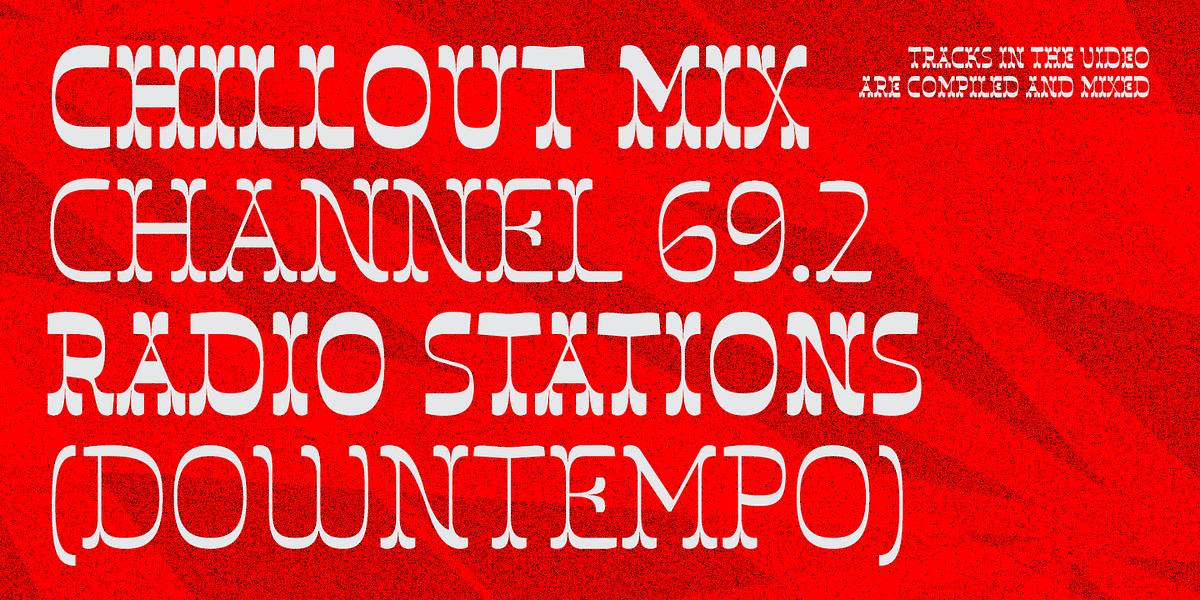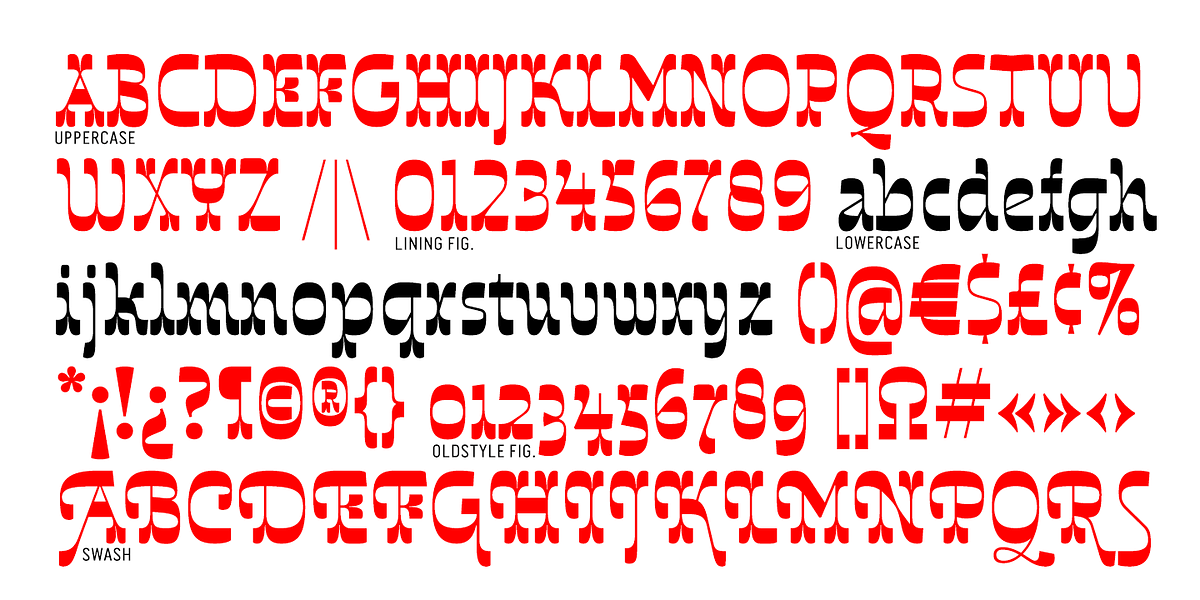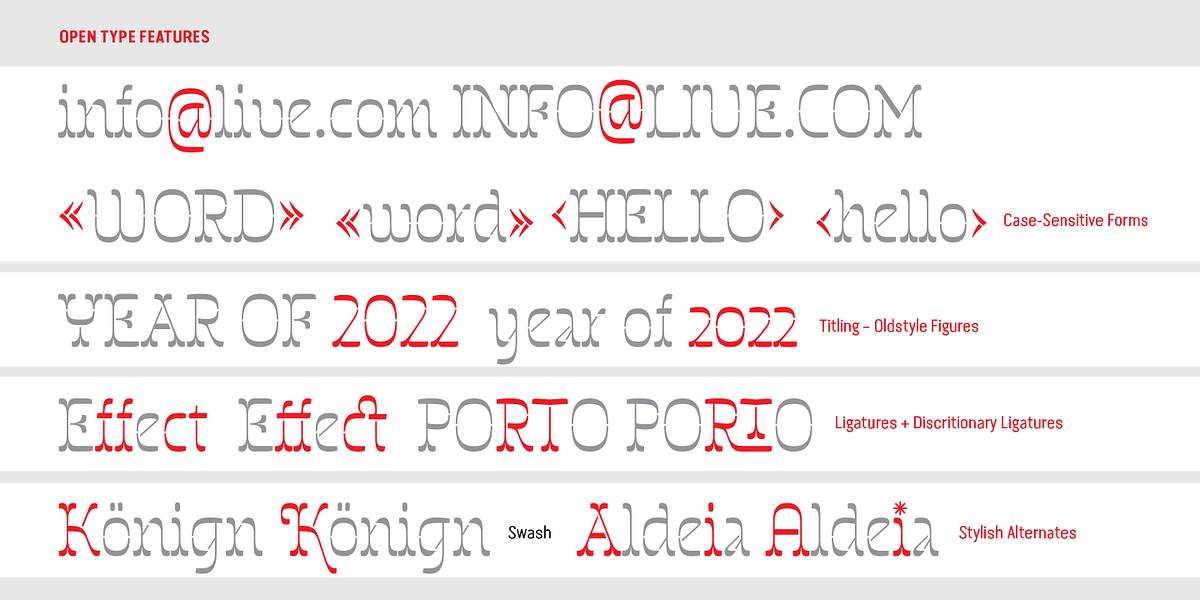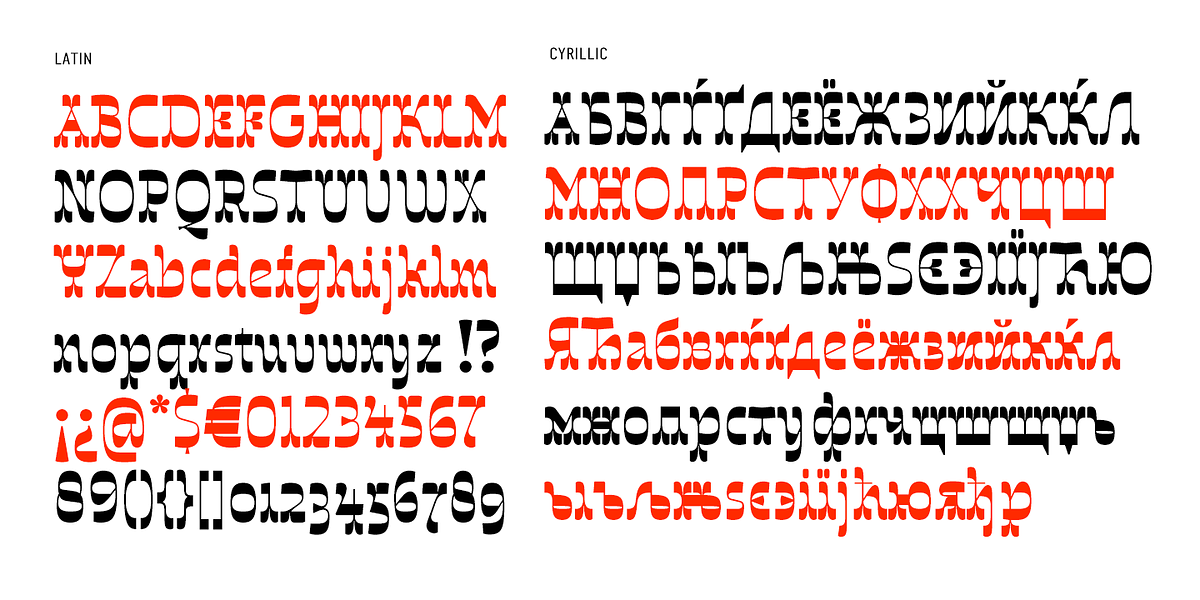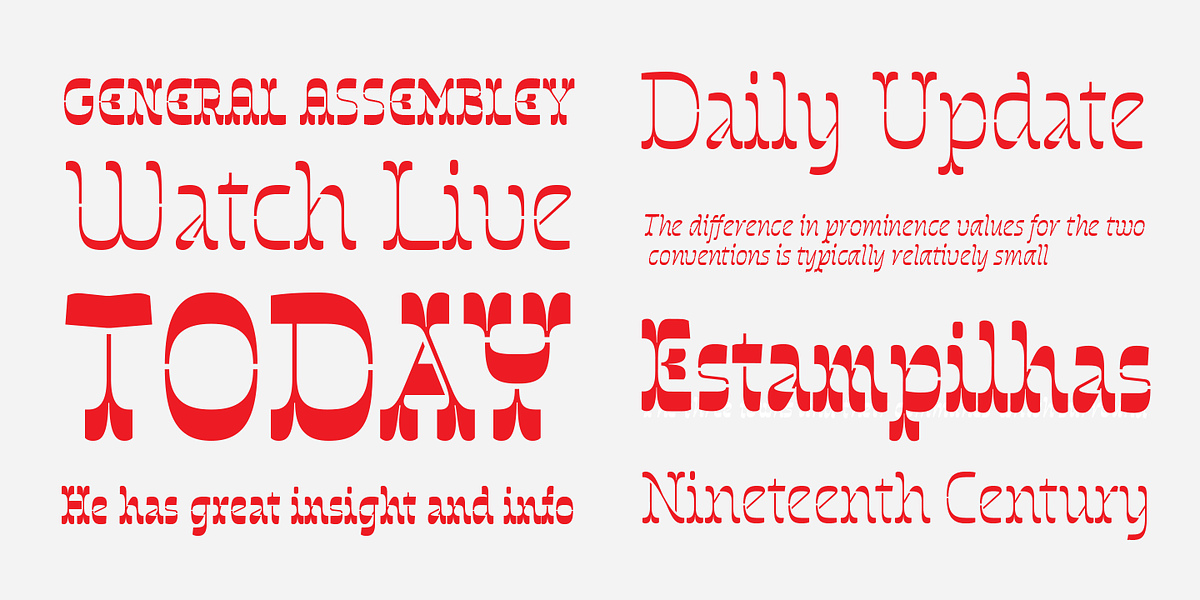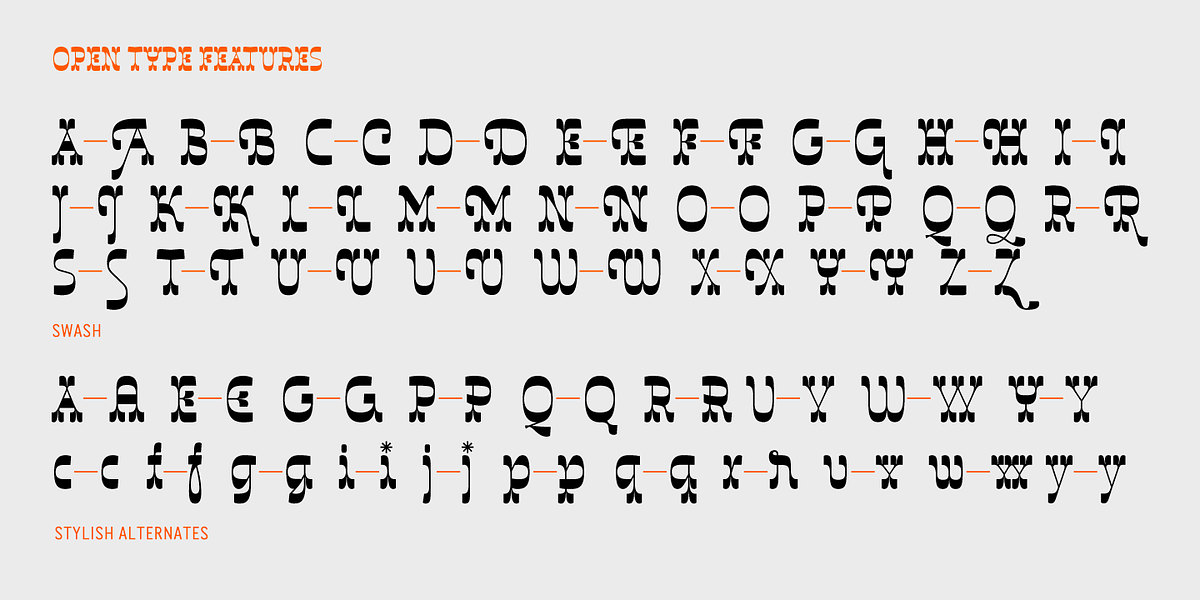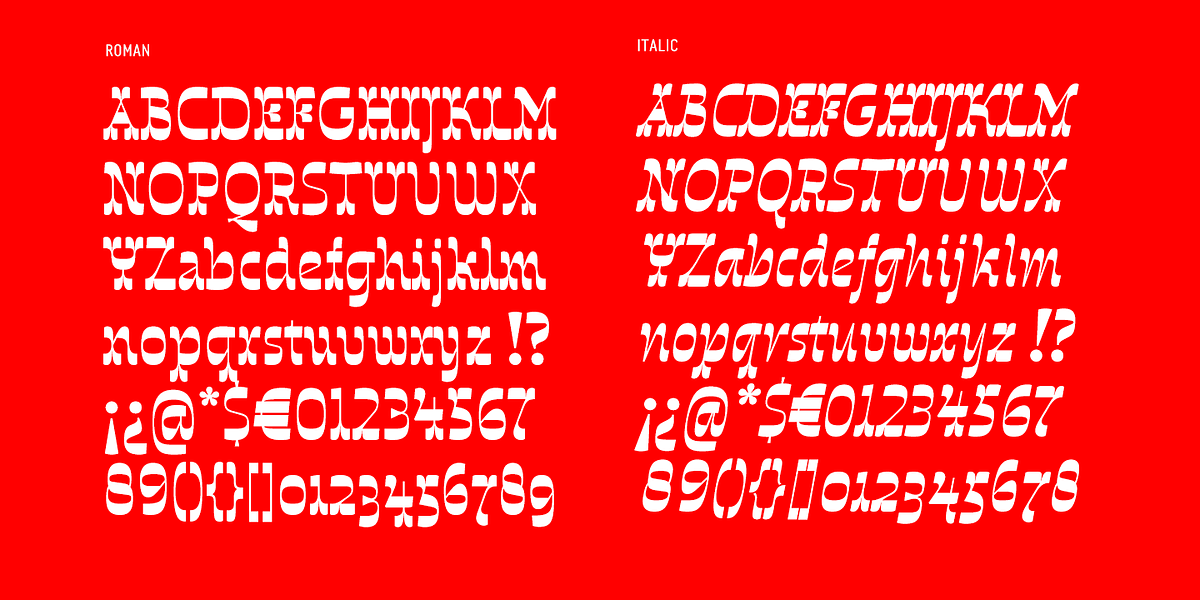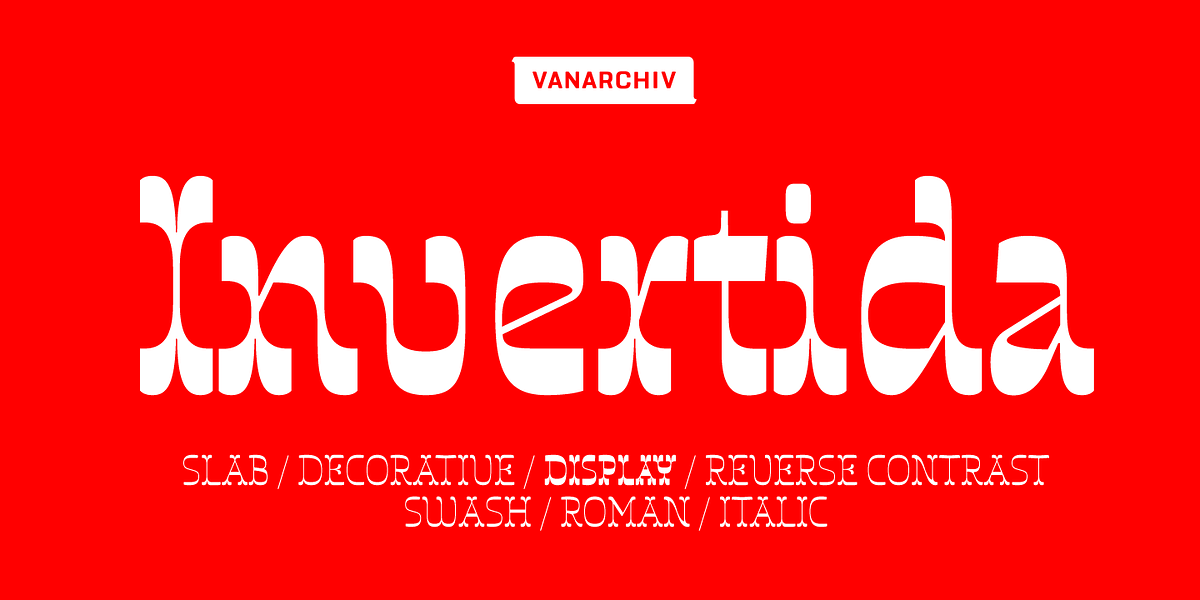
Invertida
This slab serif typeface evokes a vintage Western aesthetic through its reverse contrast letterforms. It's available in both standard and stencil versions, supporting Latin and Cyrillic characters and offering italic variations. OpenType features further enhance its versatility with stylistic alternates, ligatures, swashes, and figures.